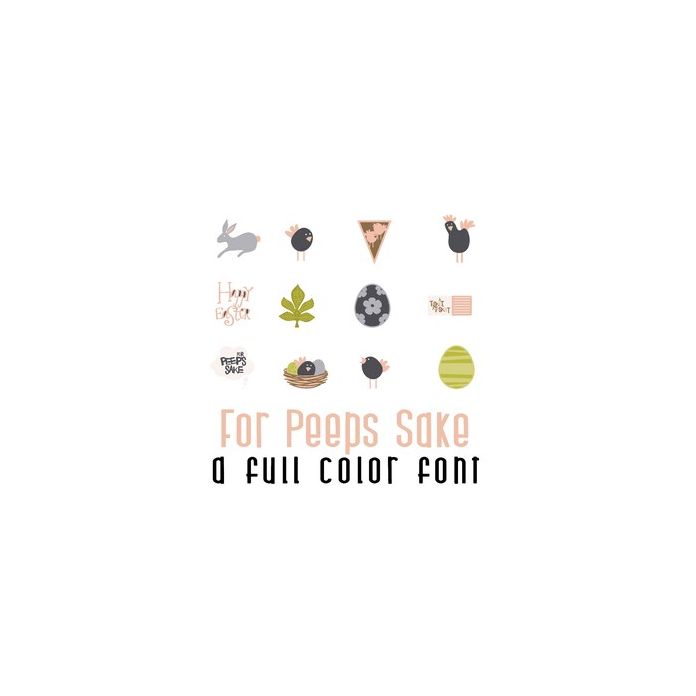
This adorable full-color doodlebat font features 26 Easter and Spring images. Perfect for cards, crafts, gifts, decor, scrapbook pages, planner stickers, and more! Glyphs are A-Z and 0-9.